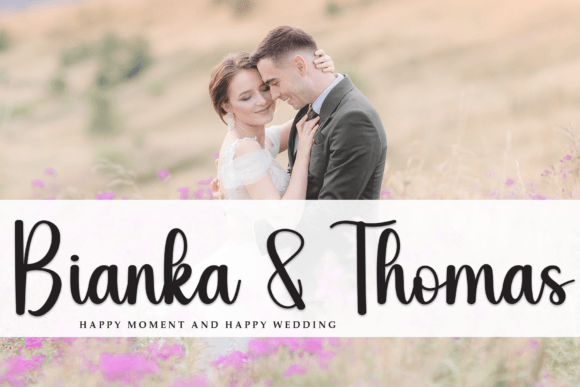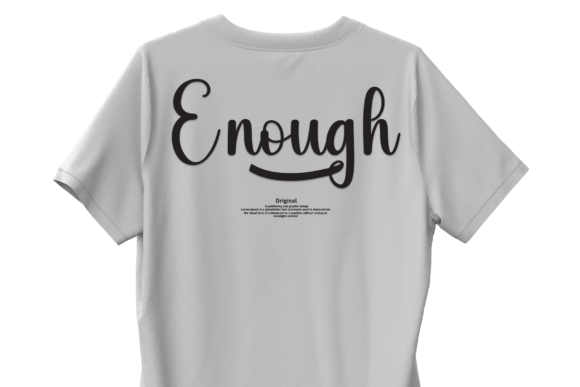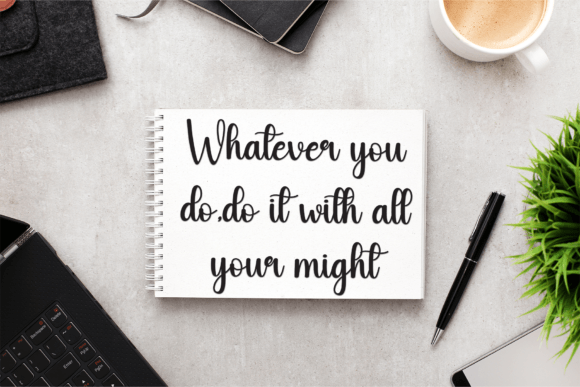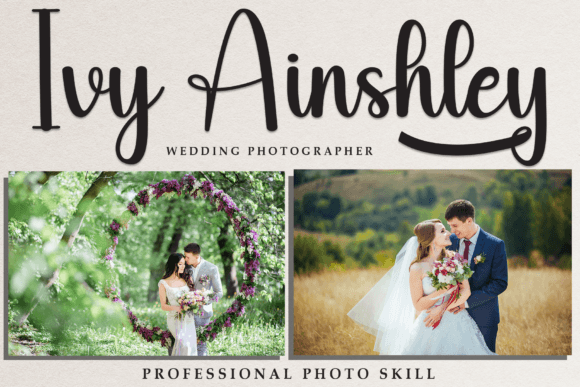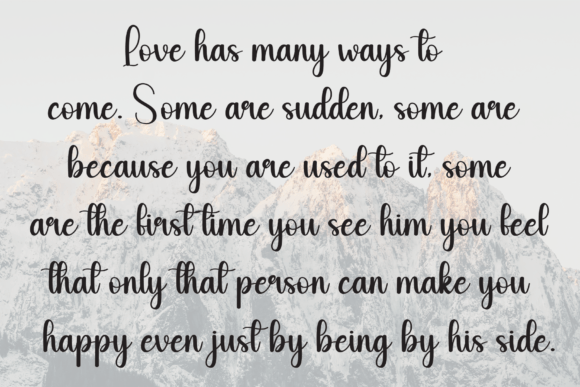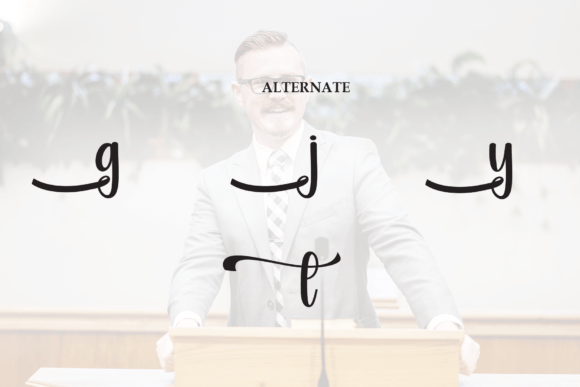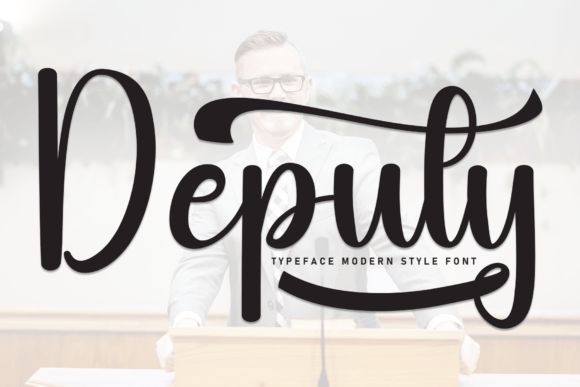
Introducing Deputy Font: The Sweet and Friendly Handwritten Display Font
Are you looking for a font that can add a touch of warmth and personality to your designs? Look no further than Deputy Font, a sweet and friendly handwritten display font that’s perfect for creating eye-catching wedding invitations, cards, and other crafty projects. In this article, we’ll take a closer look at Deputy Font, its features, and how you can use it to elevate your designs.
What is Deputy Font?
Deputy Font is a beautiful handwritten display font that’s designed to bring a sense of fun and playfulness to your designs. With its cute and friendly letterforms, this font is ideal for creating designs that require a personal touch. Whether you’re a designer, crafter, or DIY enthusiast, Deputy Font is a great addition to your font collection.
Key Features of Deputy Font
- Handwritten display font: Deputy Font is a handwritten display font that’s designed to make a statement. Its unique letterforms and flowing connections make it perfect for creating eye-catching headlines and titles.
- Sweet and friendly: The font has a sweet and friendly tone that’s perfect for creating designs that require a personal touch. It’s ideal for wedding invitations, birthday cards, and other celebrations.
- Cute and fun: Deputy Font is a cute and fun font that’s sure to bring a smile to your face. Its playful letterforms make it perfect for creating designs that require a touch of whimsy.
- Easy to read: Despite its playful nature, Deputy Font is easy to read and understand. Its clear letterforms make it perfect for creating designs that require a clear and concise message.
Use Cases for Deputy Font
Deputy Font is a versatile font that can be used for a variety of design projects. Here are some use cases to get you started:
- Wedding invitations: Deputy Font is perfect for creating beautiful and unique wedding invitations. Its sweet and friendly tone sets the tone for a romantic and memorable occasion.
- Cards and stationery: The font is also great for creating cards and stationery for special occasions such as birthdays, anniversaries, and graduations.
- DIY projects: Deputy Font is a great addition to any DIY project, from crafting to scrapbooking. Its playful letterforms add a personal touch to any project.
- Branding and packaging: The font can also be used for branding and packaging projects that require a touch of personality and whimsy.
Tips for Using Deputy Font
Here are some tips for using Deputy Font in your designs:
- Use it sparingly: Deputy Font is a display font, so it’s best to use it sparingly. Use it for headlines and titles, and pair it with a simpler font for body text.
- Experiment with colors: The font looks great in a variety of colors, from bright and bold to soft and pastel. Experiment with different colors to find the perfect combination for your design.
- Pair it with other fonts: Deputy Font pairs well with other fonts, including serif and sans-serif fonts. Experiment with different font combinations to find the perfect pairing.
Deputy Font is a sweet and friendly handwritten display font that’s perfect for adding a touch of personality to your designs. Its cute and fun letterforms make it ideal for creating eye-catching wedding invitations, cards, and other crafty projects. With its versatility and ease of use, Deputy Font is a great addition to any designer’s or crafter’s font collection.